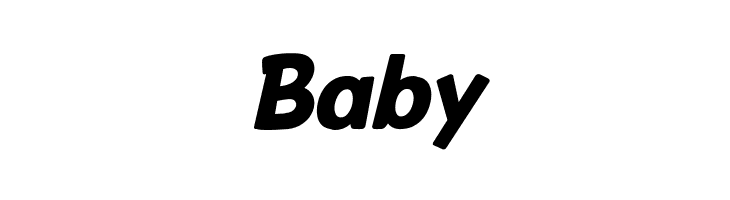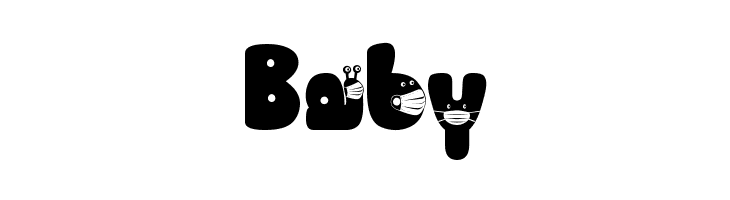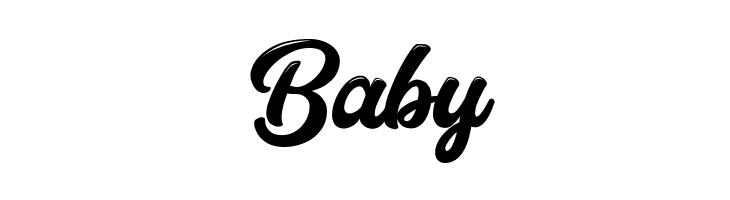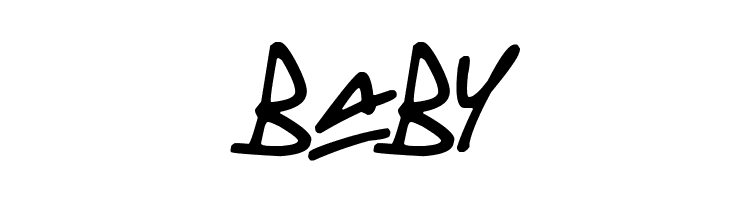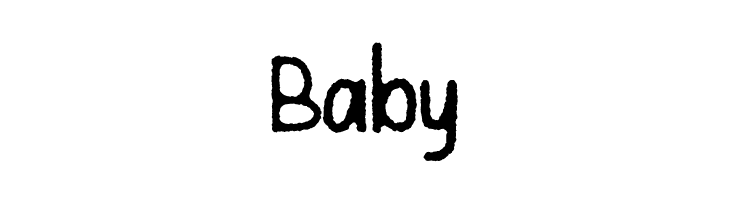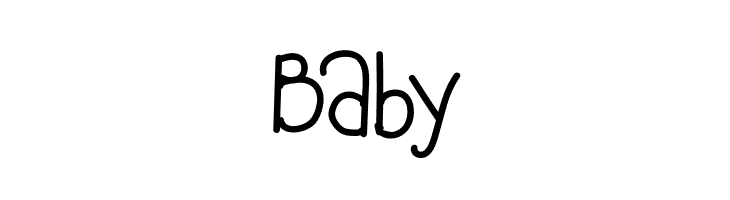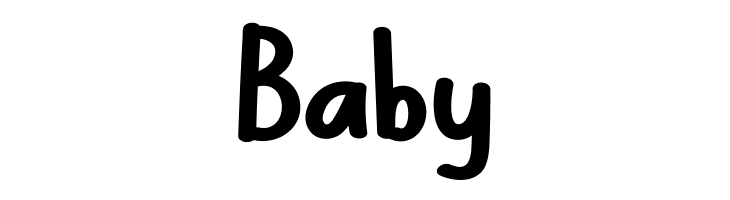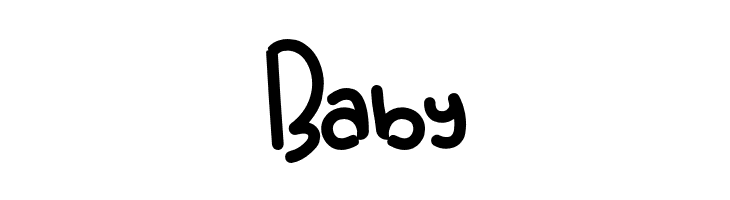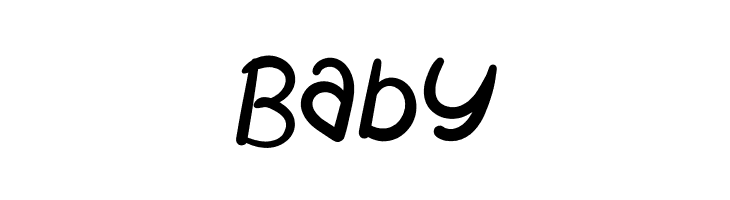
A cursive, handwritten-style font with elegant, flowing characters.
A cursive, italic font with elegant loops and a handwritten style.
A flowing, cursive script font with elegant, connected characters.
A cursive, handwritten-style font with elegant, flowing characters.
A cursive, script-style font with connected letters and moderate stroke thickness.
A graceful, cursive font with elegant, flowing strokes.
A playful, hand-drawn outlined font with a whimsical and friendly style.
A bold, playful font with a slight italic slant and rounded characters.
A playful, bold font with a bubble-like, outlined style.
A playful, outlined font with rounded characters and a bold, friendly style.
A playful, bold font with rounded, thick strokes and a friendly appearance.
A playful, hand-drawn font with quirky embellishments and a casual style.
A playful, bold font with thick, rounded characters and a bubbly appearance.
A playful, bold font with cartoonish faces on each character.
A bold, modern sans-serif font with clean, geometric letterforms.
A playful, hand-drawn font with a sketch-like, three-dimensional effect.
A playful, hand-drawn font with whimsical, irregular strokes and exaggerated serifs.
A playful, whimsical script font with flowing, interconnected letters.
A bold, flowing script font with elegant, cursive letterforms.
A bold, graffiti-inspired font with a hand-drawn, urban aesthetic.
A bold, italicized font with a graffiti-inspired, energetic style.
A playful, hand-drawn style font with a casual and organic feel.
A playful, handwritten font with uneven strokes and a casual style.
A playful, handwritten font with rounded, irregular characters.
A bold, geometric font with a collegiate, sports-inspired style.
A playful, handwritten-style font with bold, rounded characters.
A playful, rounded font with a hand-drawn, youthful appearance.
A playful, handwritten font with bold, rounded characters and a whimsical style.
A bold, playful handwritten font with smooth, flowing strokes.
A playful, rounded font with smooth curves and a friendly vibe.
A playful, hand-drawn font with bold, rounded characters.
A playful, handwritten font with smooth, rounded curves and a casual style.
A playful, handwritten font with bold, rounded characters.
A playful, hand-drawn font with a whimsical and artistic style.